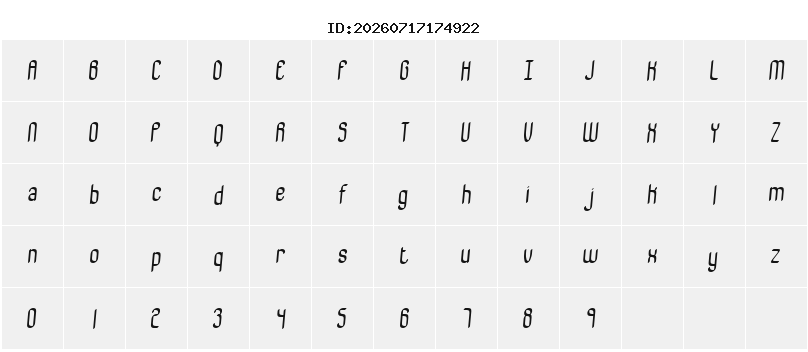
Bewilder BRK Preview
• Font Name: Bewilder BRK
• Designer: ÆNIGMA FONTS - Brian Kent
• Manufacturer: ÆNIGMA FONTS
About Bewilder BRK.ttf
Bewilder BRK.ttf is a modern, elegant sans-serif font designed for ultimate readability and visual harmony. Perfect for branding, headlines, web design, and print materials.